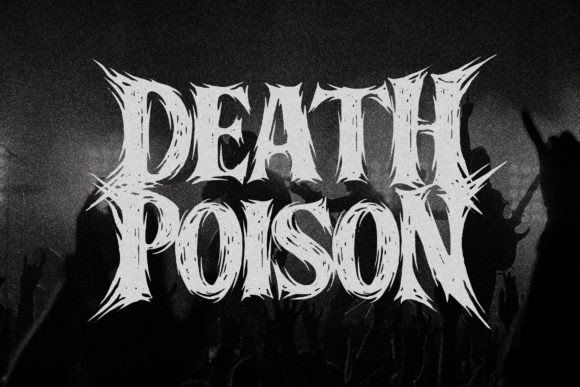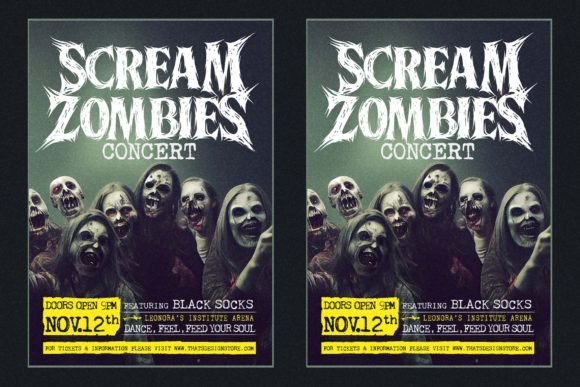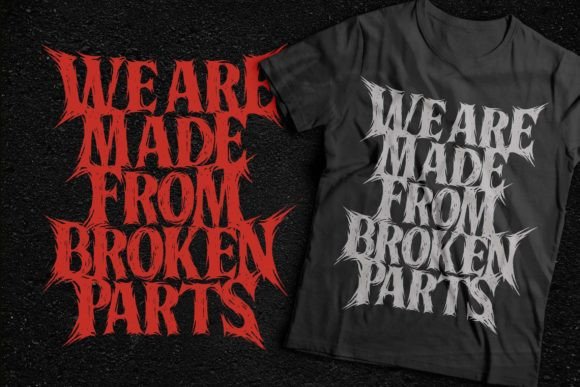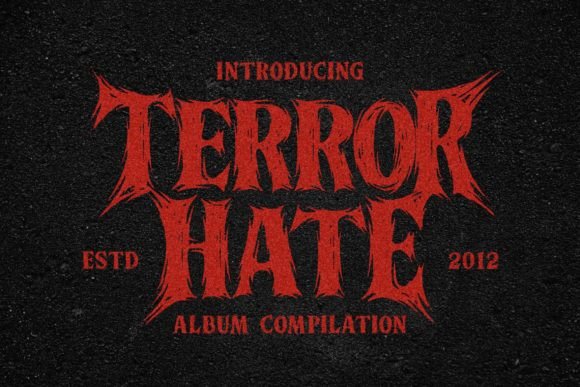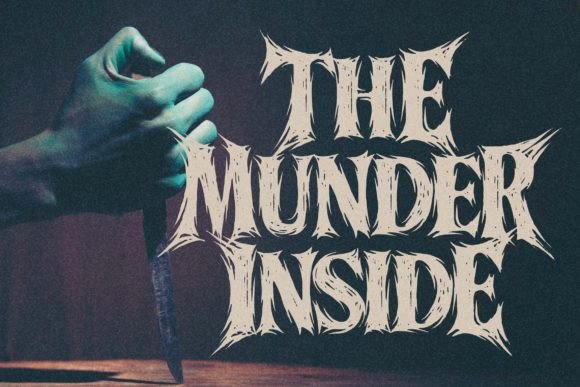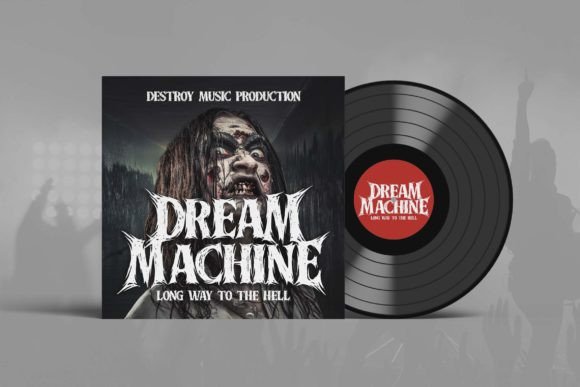
Unleash the Power of Metal with Blade Desire Font
Are you a designer or craft looking for a font that embodies the spirit of metal music? Look no further than Blade Desire, a black metal font designed to elevate your professional projects to the next level. With its sharp and rock-inspired touch, this font is perfect for any metal music-themed project, from logotypes and watermarks to album covers and promotional materials.
What is Blade Desire Font?
Blade Desire is a specially crafted font, designed to capture the essence of black metal music. Its unique and bold style makes it an ideal choice for designers and crafters looking to add a touch of metal to their work. The font includes a full set of uppercase and lowercase letters, numerals, punctuation, and alternative characters, ensuring that you have everything you need to create stunning metal-inspired designs.
Key Features of Blade Desire Font
- Sharp and Rock Touch: Every letter in Blade Desire has a sharp and rock-inspired touch, giving your designs a bold and edgy look.
- Full Set of Characters: The font includes a complete set of uppercase and lowercase letters, numerals, punctuation, and alternative characters, providing you with endless creative possibilities.
- Perfect for Metal Music Themes: Blade Desire is specifically designed for metal music-themed projects, making it an ideal choice for logotypes, watermarks, album covers, posters, t-shirts, and more.
- Professional and Versatile: This font is suitable for a wide range of professional projects, from music promotions to product packaging, ensuring that your designs look sleek and professional.
Use Cases for Blade Desire Font
Blade Desire font is incredibly versatile and can be used in a variety of projects, including:
- Logotype and Branding: Create a bold and memorable logo for your metal band or music-related business.
- Album Covers and Posters: Design eye-catching album covers and posters that capture the spirit of metal music.
- T-Shirts and Merchandise: Add a touch of metal to your t-shirts, hoodies, and other merchandise with Blade Desire font.
- Promotions and Advertising: Use Blade Desire font to create promotional materials, such as flyers, brochures, and social media graphics, that grab attention and convey a bold message.
- Product Packaging: Elevate your product packaging with a bold and edgy font that reflects your brand’s personality.
Why Choose Blade Desire Font?
With so many fonts available, why choose Blade Desire? Here are just a few reasons:
- Unique and Authentic: Blade Desire font is specifically designed for metal music themes, ensuring that your designs stand out and convey an authentic message.
- High-Quality Design: The font is crafted with attention to detail, ensuring that every letter and character is crisp and clear.